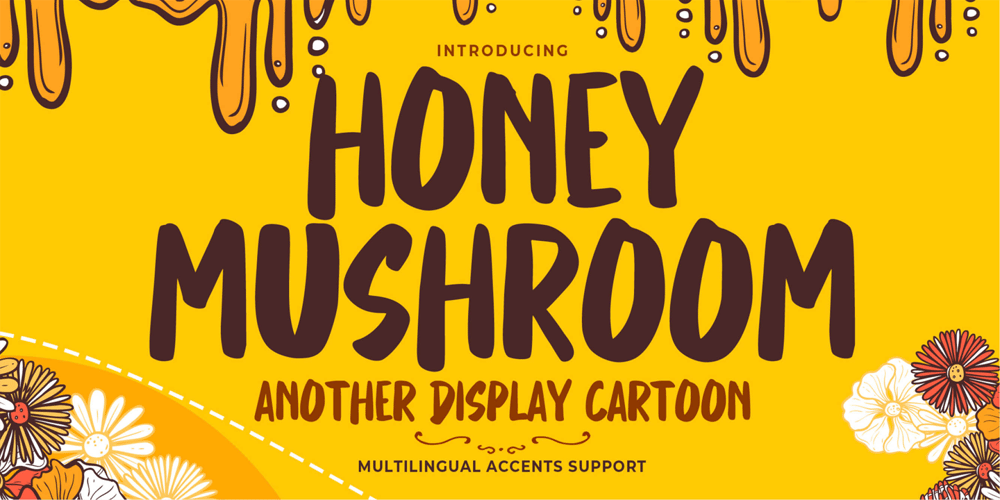
Honey Mushroom Font Family was designed by Abdul Malik Wisnu, Anang Fibriyanto and published by Gassstype. Honey Mushroom contains 1 styles and family package options. Here comes a New font,Introducing Honey Mushroom is Another Display Cartoon is a Signature Style and classy style, Cute Cartoon Font,Bold Display , Inspired from Modern logos of brands that have very strong characteristics, this font is great for your creative projects such as watermark on photography, and perfect for logos & branding, invitation,advertisements,product designs, stationery, wedding designs,label ,product packaging, special events or anything that need handwritting taste.Honey Mushroom a natural Hand Drawn feel. This handmade font will make your design has a beautiful natural touch for each details. It is perfect for any design project as Invitation,logo, book cover, craft or any design purposes,photos, photography overlays, signs, window art, scrapbooking, tags and so much more!